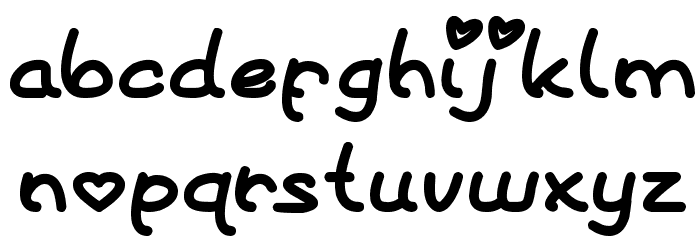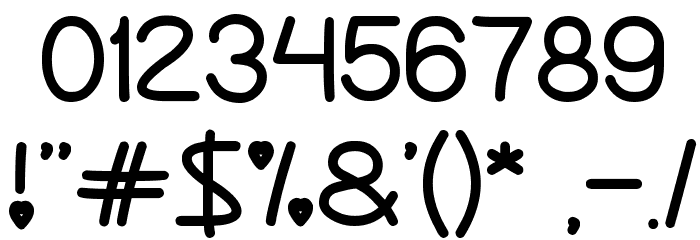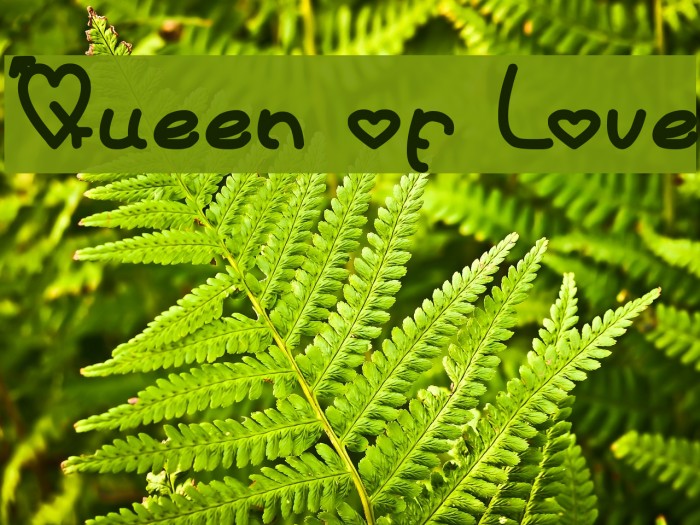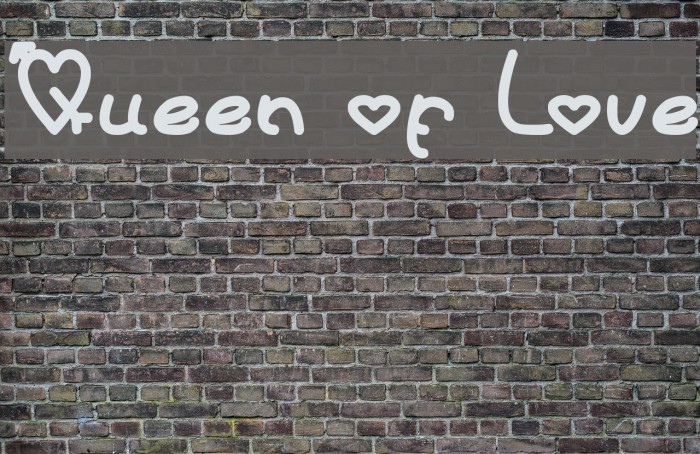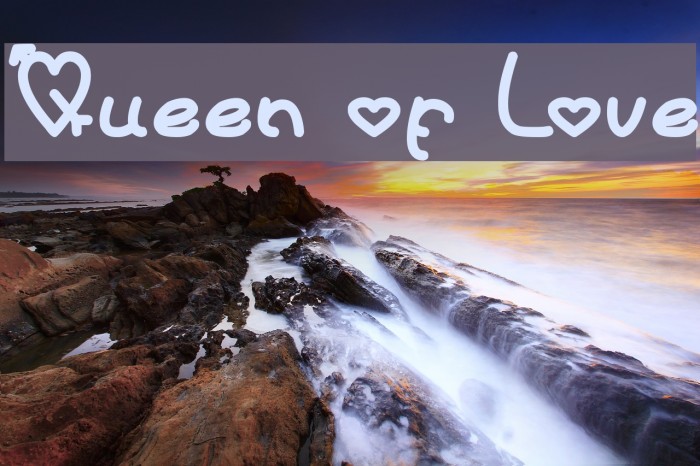
Queen of Love Font
This playful and whimsical font features a unique blend of rounded, hand-drawn characters with a charming, informal style. The uppercase letters are bold and slightly irregular, adding a sense of fun and creativity. Notably, the font incorporates heart shapes within some letters, such as 'O' and 'o', enhancing its romantic and playful theme. The lowercase letters maintain a consistent style, with smooth curves and a friendly appearance. Numbers and special characters follow the same design ethos, ensuring a cohesive look throughout. This font is perfect for projects that require a touch of whimsy and warmth.
A playful, hand-drawn font with heart-shaped accents and a whimsical style.
- Proposed Projects: Ideal for greeting cards, children's books, playful branding, and romantic-themed designs.
- Overall Style: Whimsical
- Use Case: Greeting cards, Children's books, Playful branding